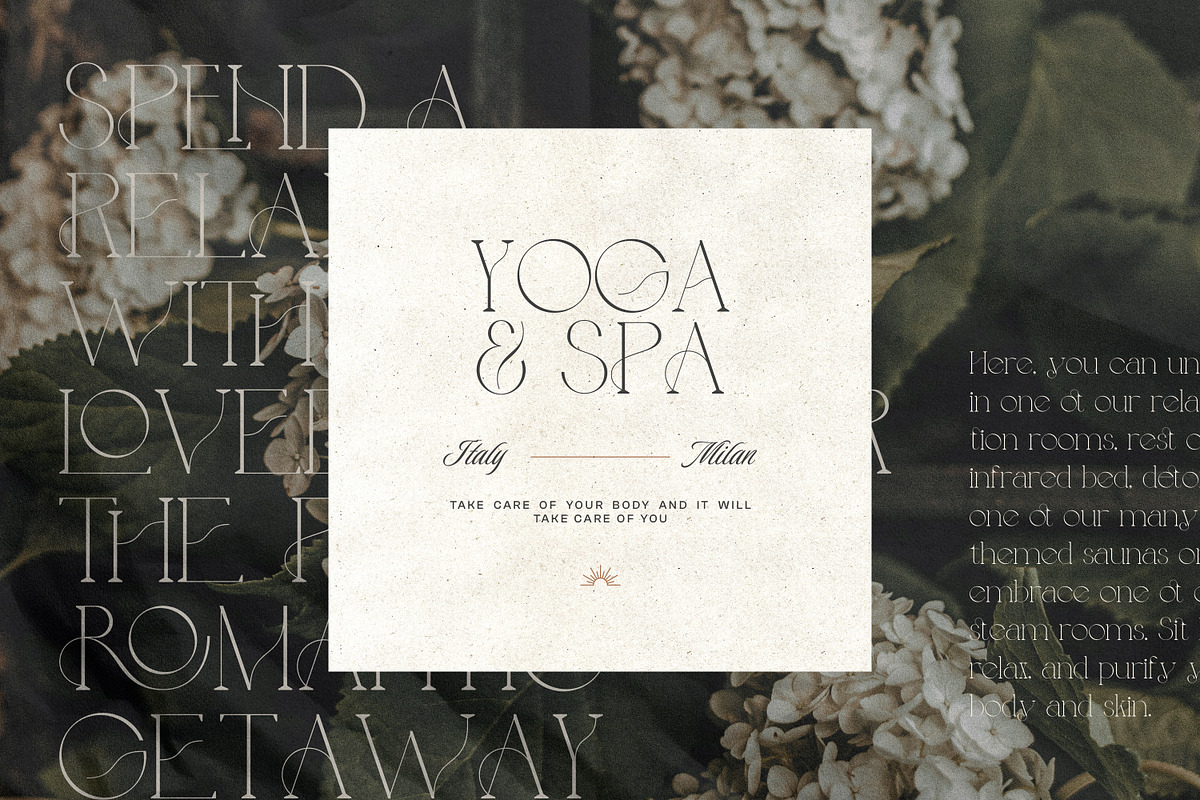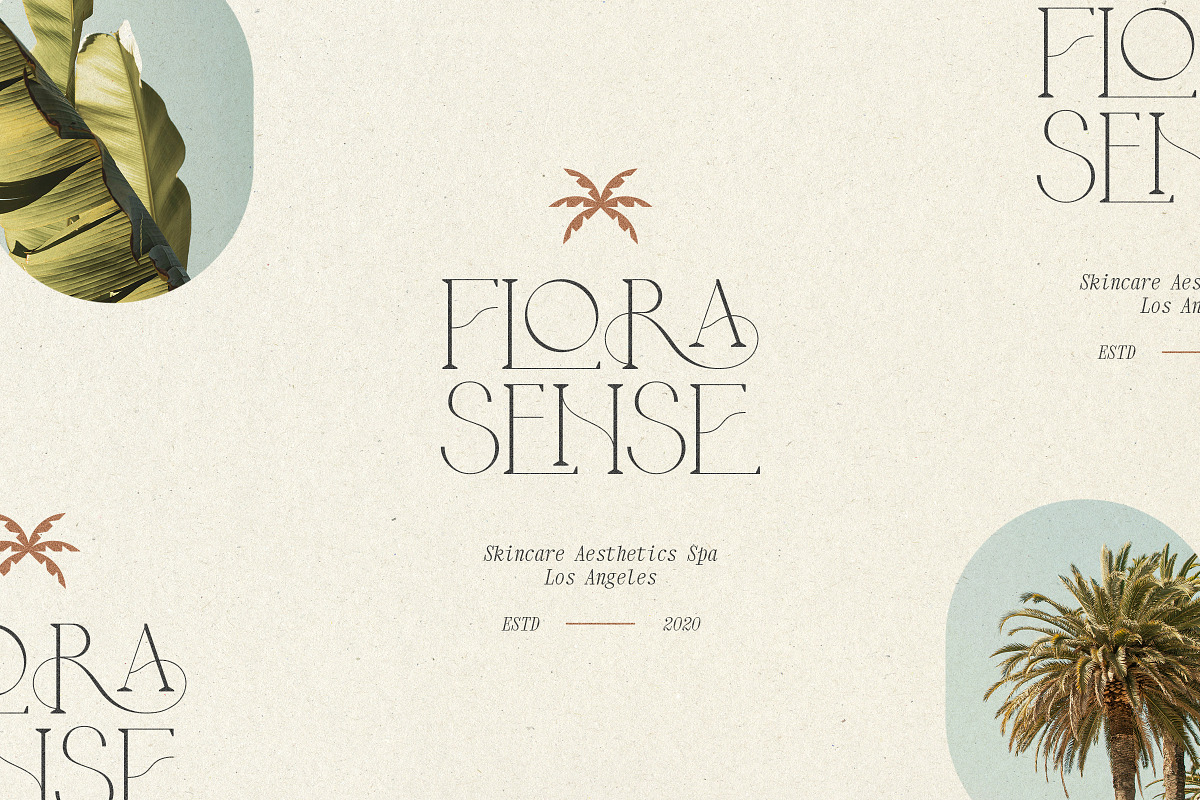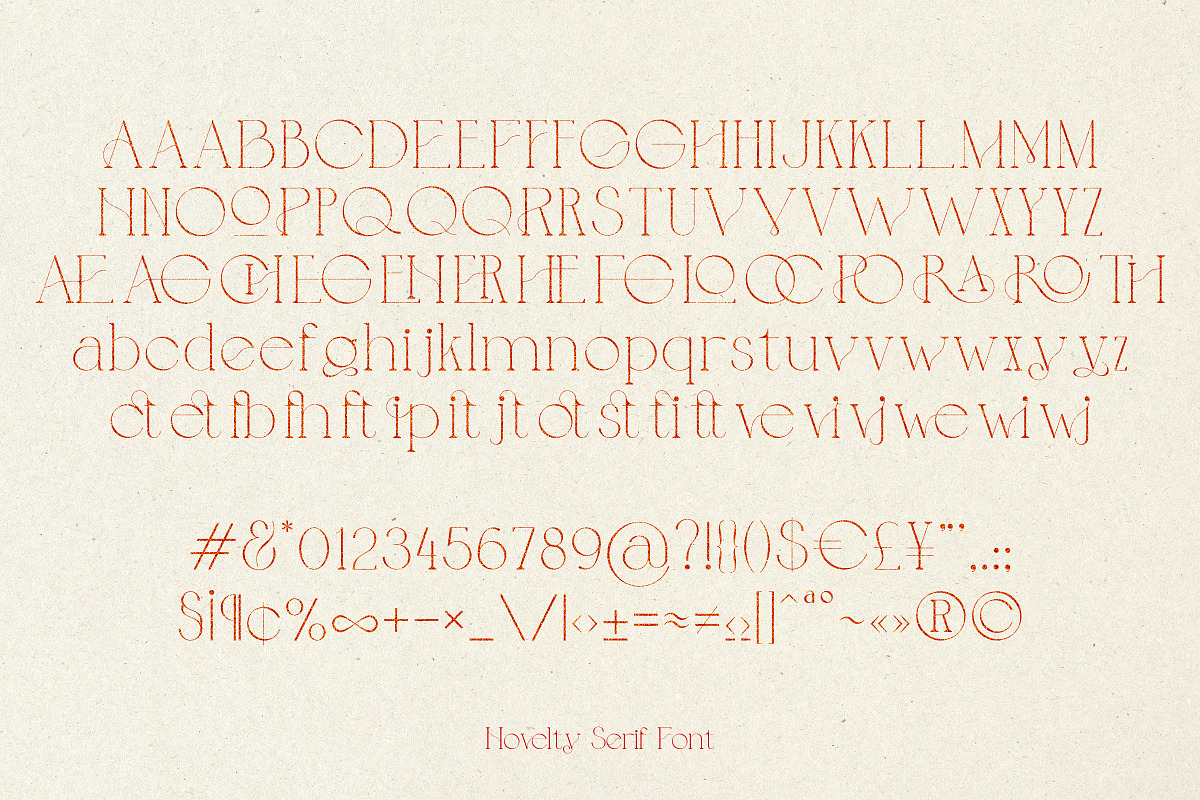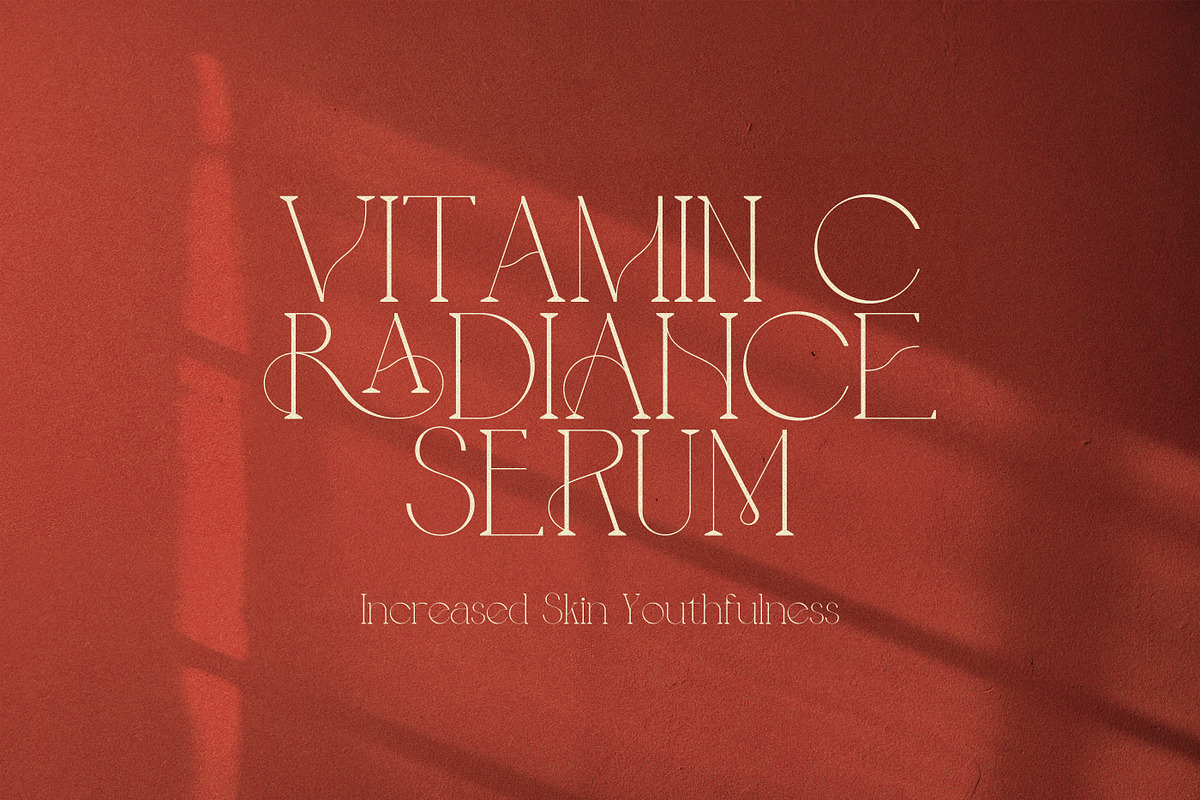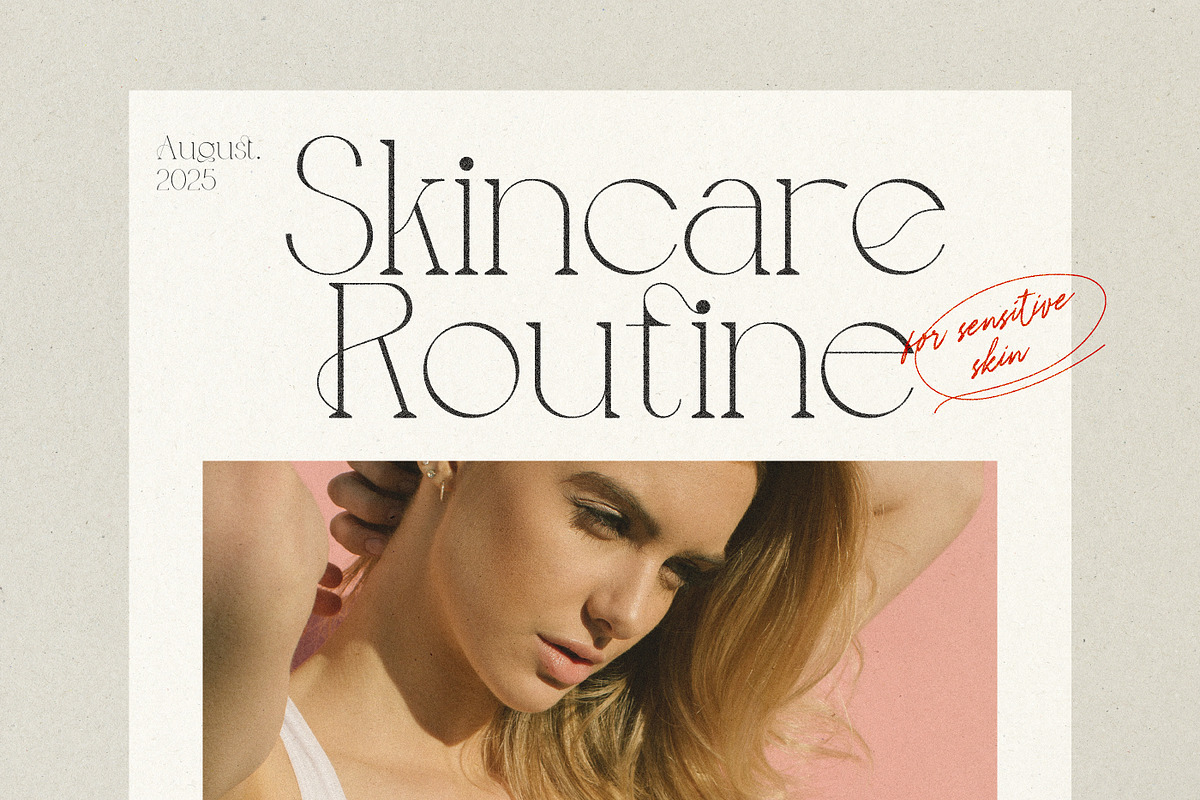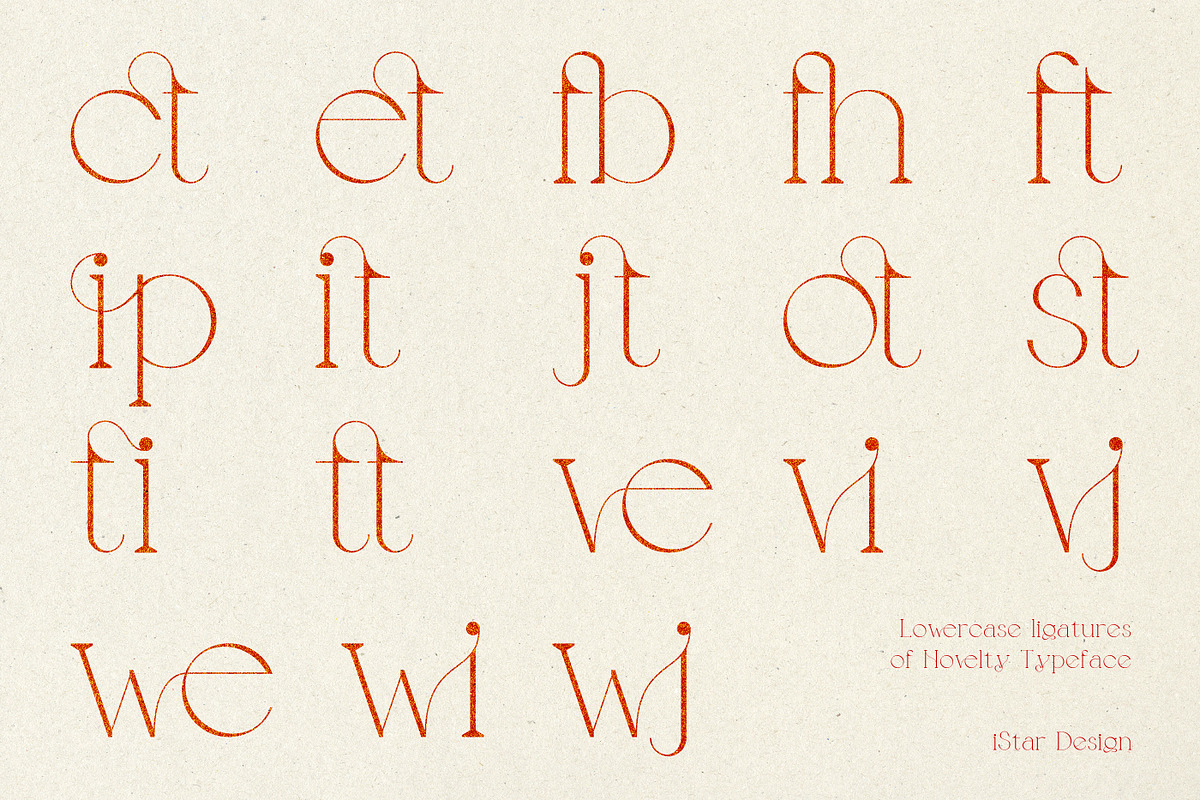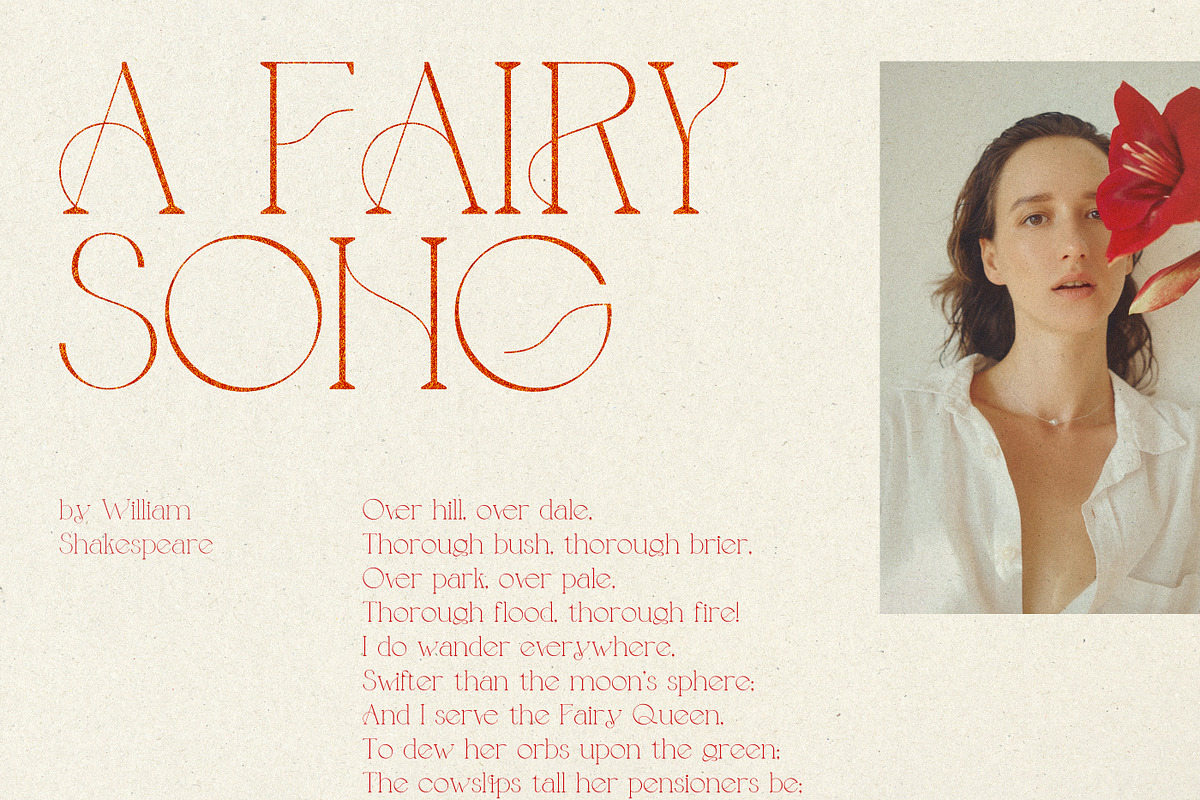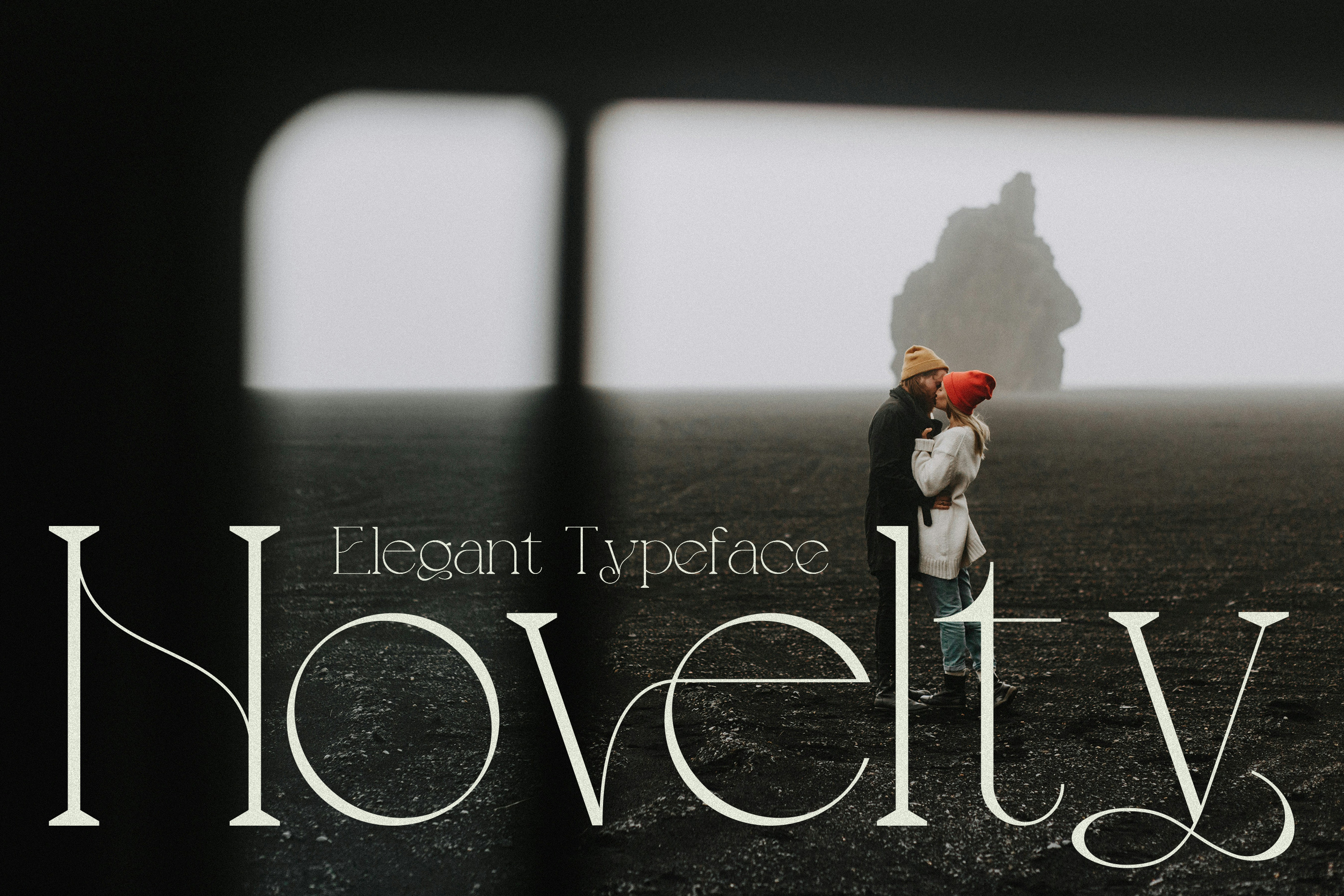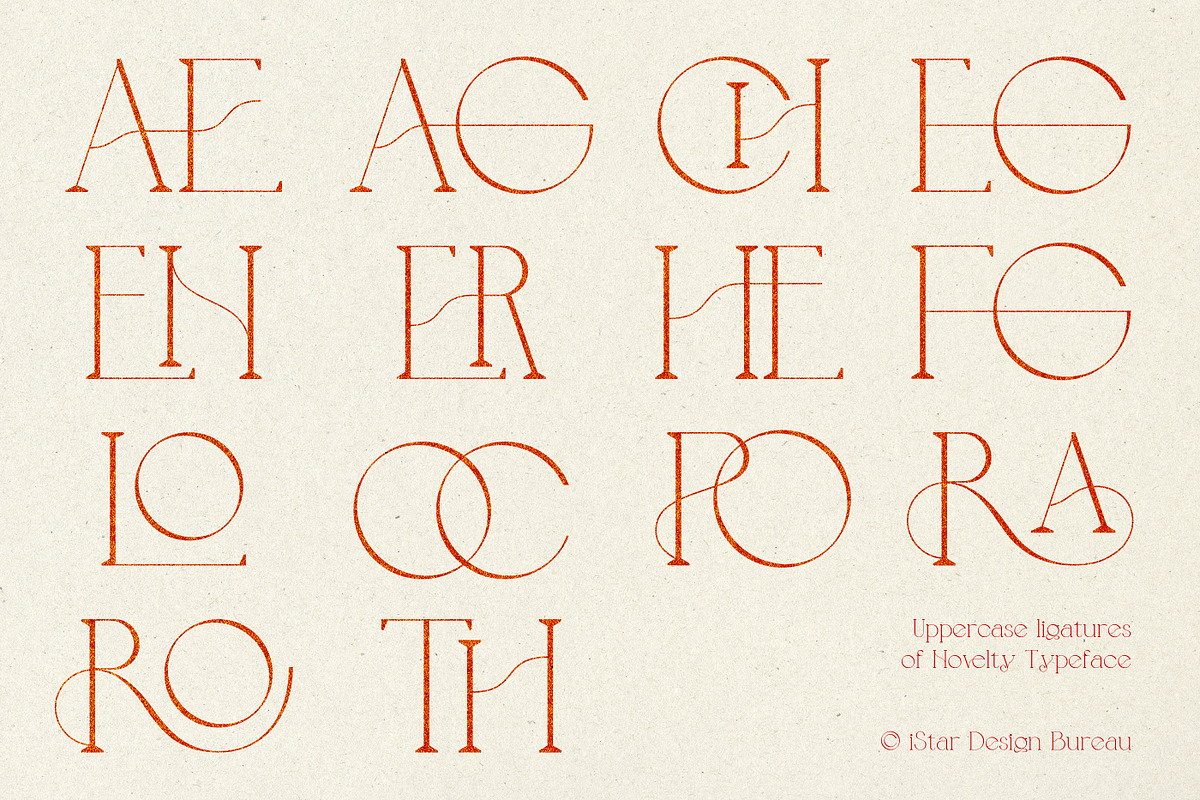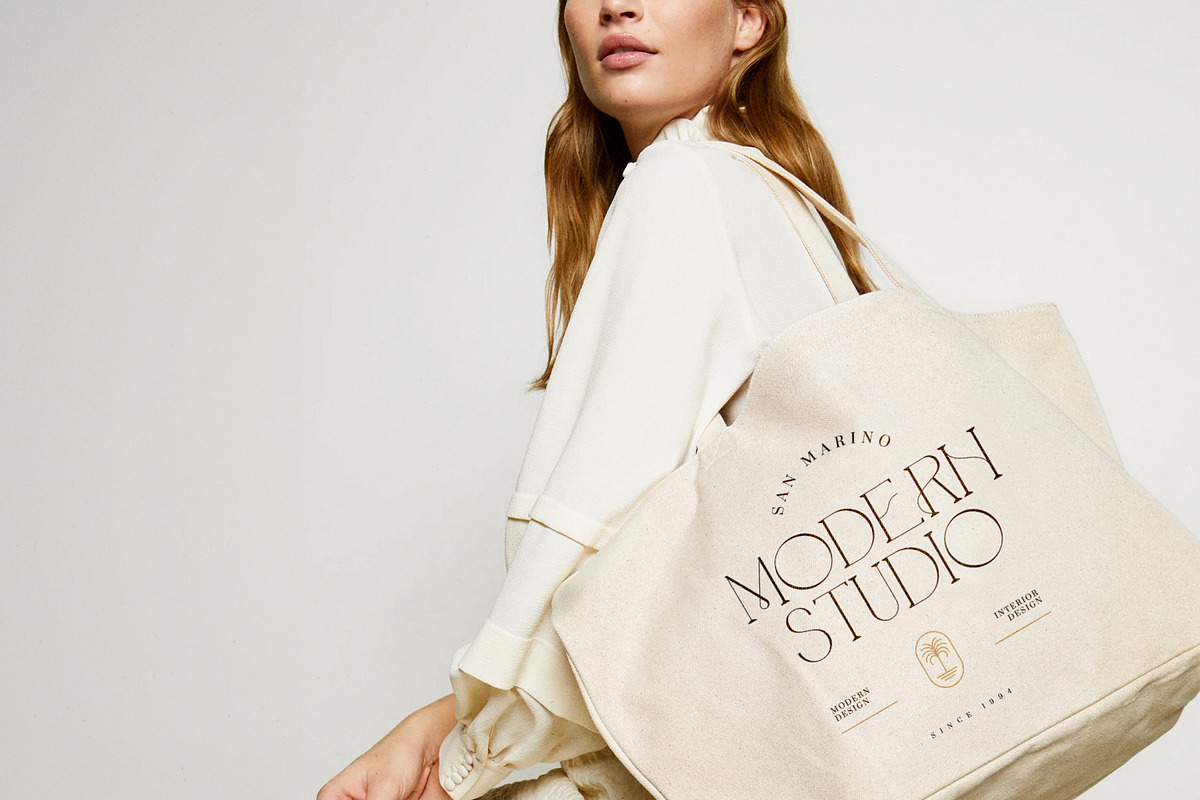
Novelty Serif Font
Novelty typeface represent a modern elegant aesthetic. With opentype ligature integration, each letter flows effortlessly, enhancing its inherent charm.
With retro aesthetics enjoying a resurgence, Novelty typeface is an ideal choice for add clean and elegant vibe to your logo design, brand identity, professional presentations, or other creative projects.